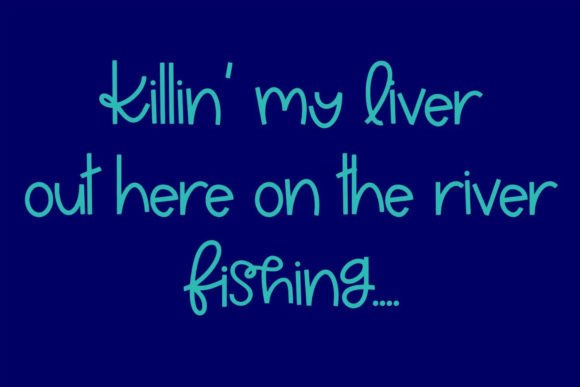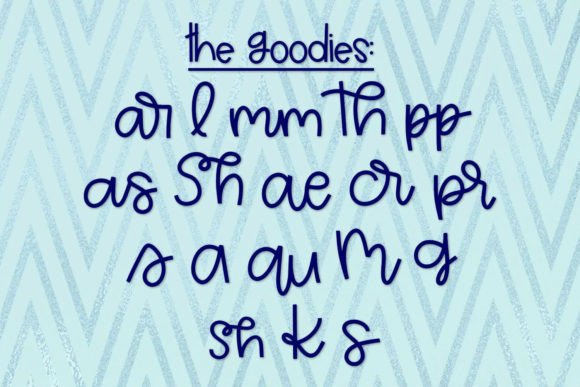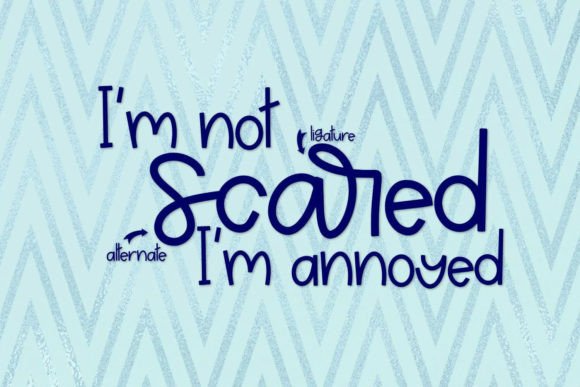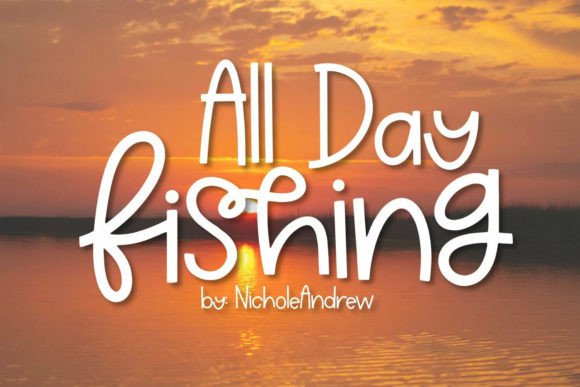
Introducing All Day Fishing Font: A Playful and Modern Script for Creative Projects
Are you looking for a font that can add a touch of playfulness and modernity to your creative projects? Look no further than the All Day Fishing font! This handwritten script-ish font is perfect for designers, crafters, and anyone looking to add a unique and fun flair to their work.
What Makes All Day Fishing Font So Special?
All Day Fishing font is a one-of-a-kind, script-ish font that features a handful of fun alternates, ligatures, and letter pairs. These special features allow you to give your project a truly unique look and feel each time you use it. Whether you’re working on a project for kids or adults, this font is sure to delight.
Key Features of All Day Fishing Font
• Handwritten and playful: All Day Fishing font has a friendly, approachable feel that’s perfect for creative projects.
• Modern script-ish style: This font combines the elegance of script fonts with a modern, laid-back vibe.
• Fun alternates, ligatures, and letter pairs: Add variety and interest to your text with these special features.
• Perfect for kids and adults: All Day Fishing font is versatile enough to be used in a wide range of projects, from children’s products to adult-oriented designs.
Use All Day Fishing Font in Your Creative Projects
All Day Fishing font is perfect for a wide range of creative projects, including:
• Children’s products: Use this font to create fun and engaging designs for kids, such as children’s books, toys, and games.
• Adult-oriented designs: Add a touch of whimsy and personality to your adult-oriented designs, such as branding, packaging, and advertising.
• Crafting and DIY projects: Use All Day Fishing font to add a personal touch to your crafting and DIY projects, such as handmade cards, gift tags, and signs.
• Digital products: This font is also perfect for digital products, such as social media graphics, blog posts, and ebooks.
Tips for Using All Day Fishing Font
Here are a few tips for getting the most out of All Day Fishing font:
• Experiment with different sizes and colors: This font looks great in a variety of sizes and colors, so don’t be afraid to experiment and find the perfect combination for your project.
• Use the special features: Take advantage of the fun alternates, ligatures, and letter pairs to add variety and interest to your text.
• Pair it with other fonts: All Day Fishing font pairs well with a variety of other fonts, so feel free to get creative and find the perfect combination for your project.
• Font Type: Handwritten, script-ish
• Font Style: Modern, playful
• Special Features: Fun alternates, ligatures, and letter pairs
• Use: Perfect for kids and adults, creative projects, crafting, DIY projects, digital products